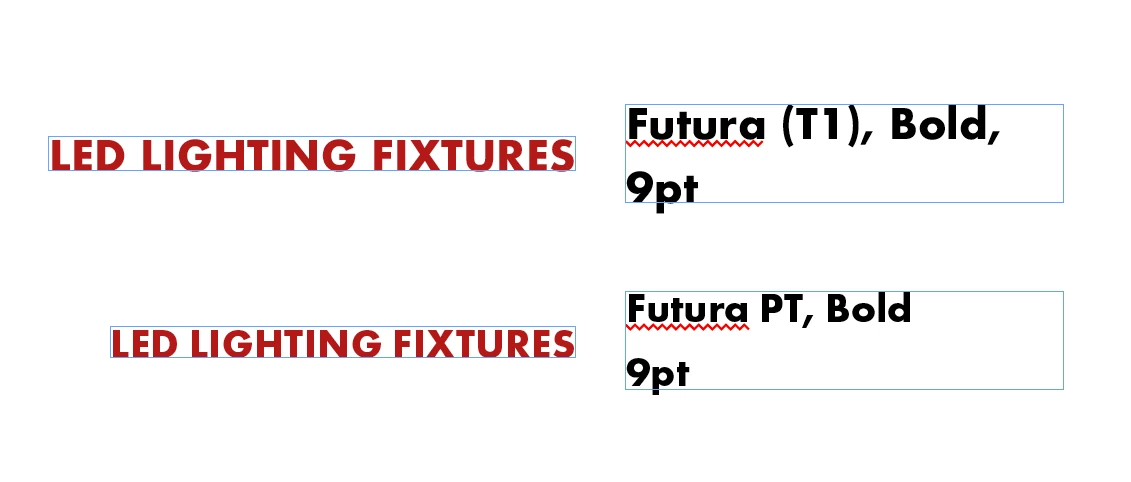
Font Futura PT
I have a problem with the "new" Futura PT fonts that we will have to use next year. Is it possible that there are these huge differences in size with the font used now Futura T1?
Also in the Futura PT COND I don't see the Futura light cond, is it possible?